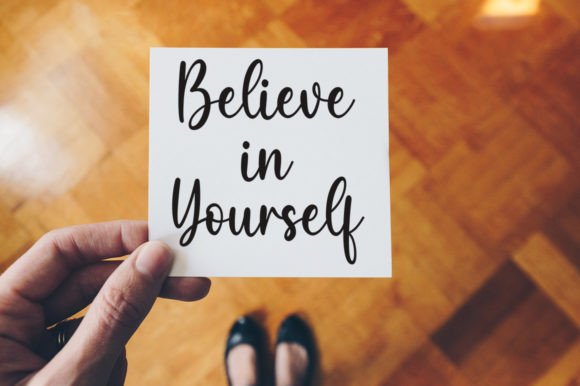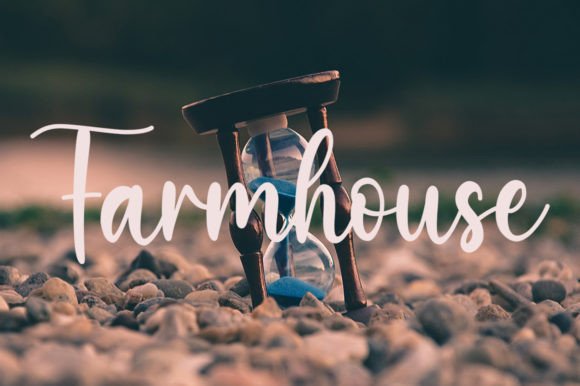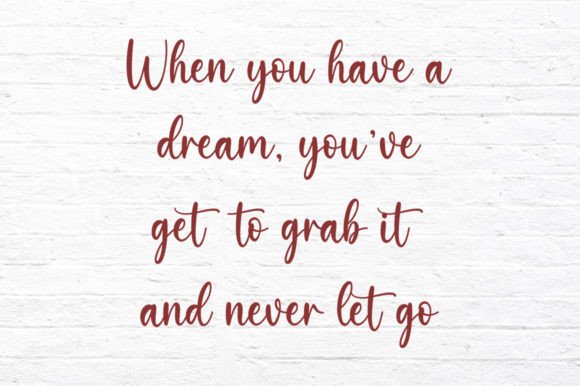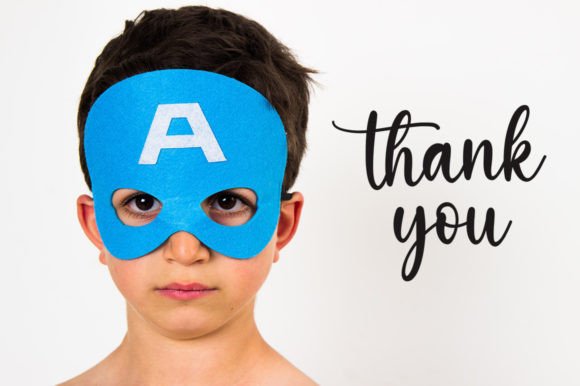
Samanthan Font
Samanthan Font – A Modern Flowing Handwritten Typeface
The Samanthan Font is a stylish handwritten typeface designed to bring elegance, creativity, and flow to your projects. With its smooth lines, unique bases, and gorgeous glyphs, this font adds a modern and versatile touch that makes any design stand out. Whether you are a professional designer or simply enjoy creating personalized projects, Samanthan Font offers the flexibility and charm you need.
Elegant and Versatile Design
One of the most attractive features of the Samanthan Font is its graceful design. Its flowing handwritten style captures attention while maintaining readability. This makes it suitable for everything from logos and product packaging to wedding invitations and greeting cards. The subtle variations in its strokes provide a natural, authentic feel that resonates with audiences looking for warmth and sophistication in typography.
Perfect for Multiple Creative Uses
Because of its modern yet timeless style, the Samanthan Font adapts to a wide range of projects. You can use it for branding, social media graphics, poster designs, business cards, or even digital presentations. Its versatility allows you to maintain consistency in your design identity while keeping a unique and stylish appearance. Many designers prefer fonts like this because they can serve multiple purposes without losing their originality.
Full Access with Stunning Glyphs
The Samanthan Font also comes with beautiful glyphs and stunning alternatives that give you creative freedom. By using these stylistic alternates, you can adjust your text to match different moods or themes. This makes it easy to personalize designs for different clients or occasions. Having access to such a variety of options is especially useful for designers who want their projects to feel distinctive and polished.
Why Choose Samanthan Font
The reason many designers love Samanthan Font is its combination of style and usability. Its handwritten elegance adds personality, while its smooth lines ensure readability across digital and print mediums. This means you can use it for promotional campaigns, stationery, apparel design, or even website headers. Its adaptability ensures that your projects always look fresh and professional.
In summary, the Samanthan Font is a modern, flowing handwritten typeface that blends elegance with versatility. With its smooth strokes, gorgeous glyphs, and stylistic alternatives, it opens endless creative possibilities. Designers seeking a font that is stylish yet practical will find this typeface a valuable addition to their library. Don’t miss the chance to download Samanthan Font today and elevate your designs with its timeless beauty and flexibility.